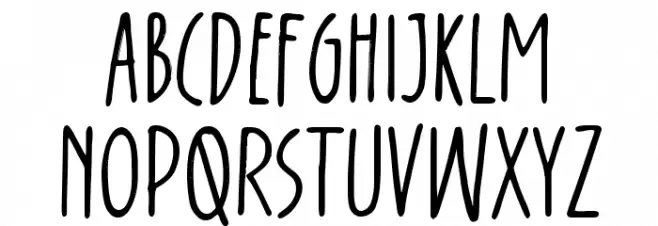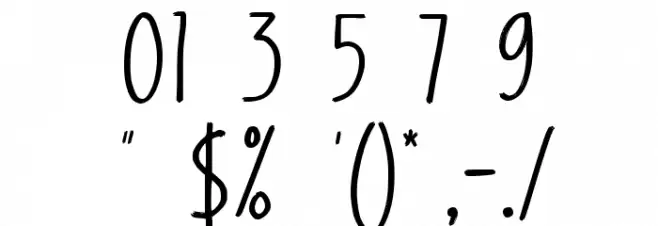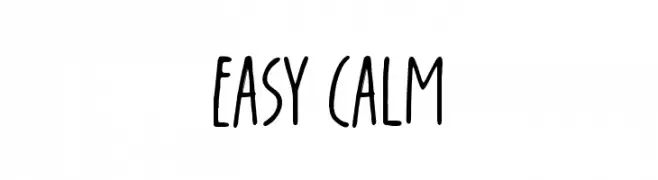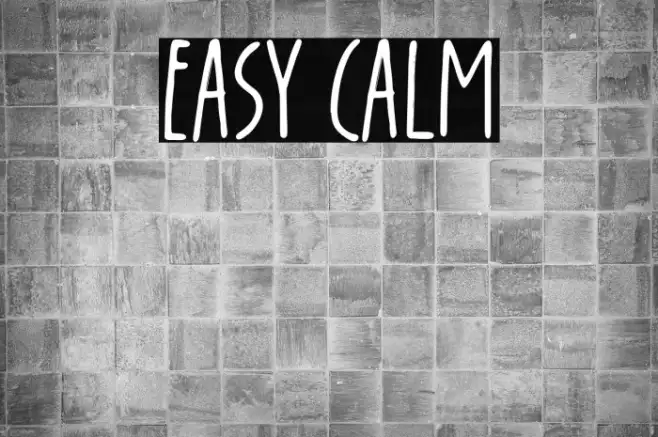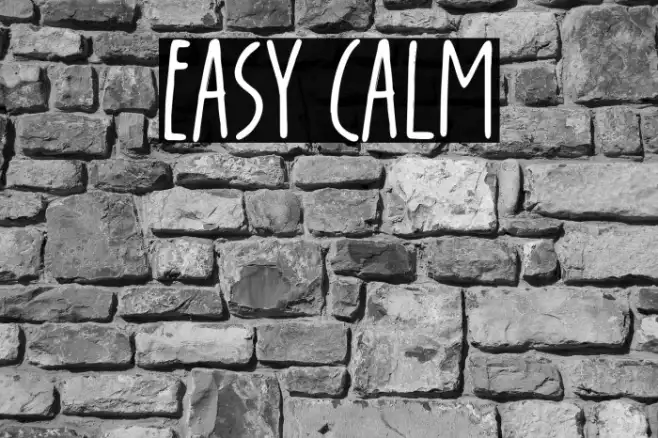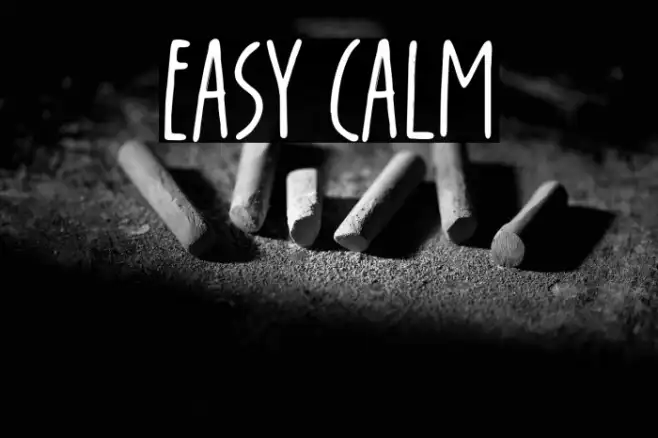
Easy Calm
A playful, handwritten font with tall, narrow letters and a casual style.
Playful handwritten font with tall, narrow letters.
- : Easy Calm
- Proposed Projects: Greeting cards, casual branding, children's books.
- Width: Condensed
- Overall Style: Casual, Playful
- Use Case: Headlines, Informal text, Creative projects